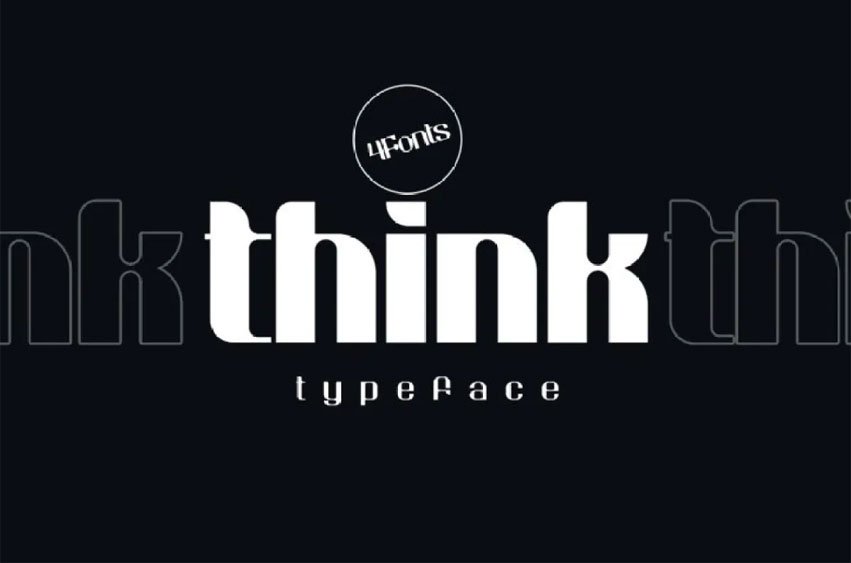
Think Font
Think Font is a sleek solid and extended sans serif display typeface. It is a distinct elegant feel that will help you convey attention to your designs projects.
Think Font is perfect for branding, designing display photos for your social networks, creating striking quotes and much more.